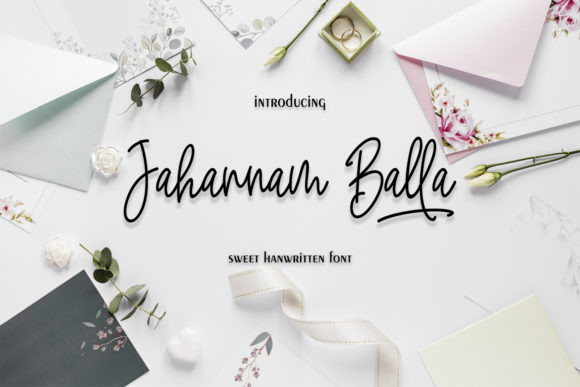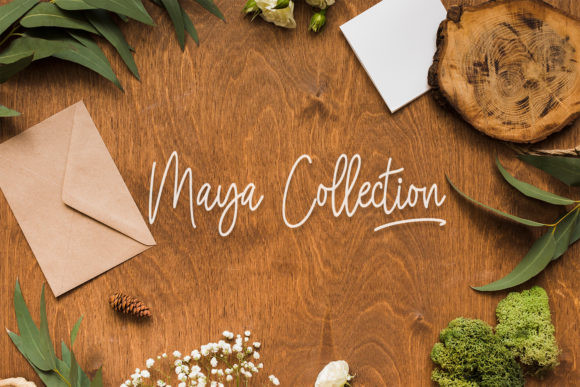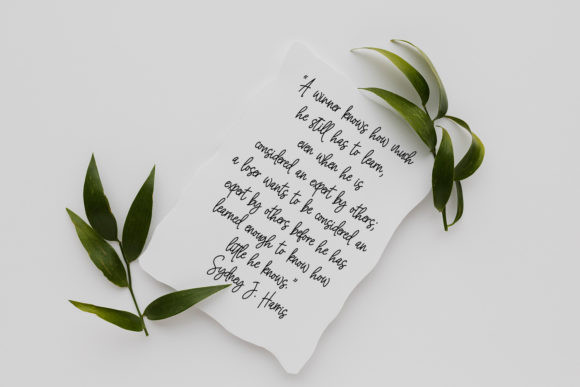
Jahannam Balla Font
Jahannam Balla is a sweet, soft hand-lettered script font. Fall in love with its authentic feel and use it to create gorgeous wedding invitations, beautiful stationary art, eye-catching social media posts, and cute greeting cards.